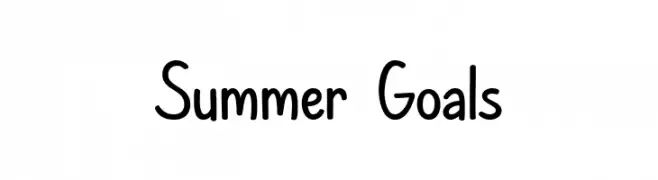
• Abessom Italic
An elegant, italicized script font with a handwritten feel.
• Abhaya Libre
A classic serif font with modern elegance and refined letterforms.
• Abhaya Libre Bold
A bold serif typeface with elegant, traditional characteristics and moderate contrast.
• Abhaya Libre ExtraBold
A bold serif typeface with a classic and authoritative style.
• Abhaya Libre Medium
A medium-weight serif font with a classic and formal appearance.
• Abhaya Libre Regular
A classic serif font with a modern touch, offering elegance and versatility.
• Abhaya Libre SemiBold
A semi-bold serif font with a classic and elegant style.
• Abhayas
A cursive, handwritten-style font with elegant, flowing strokes.
• Abhayas light
A lively and flowing script font with cursive, connected letterforms.
• Abhinaya Regular
A bold, angular font with high contrast and geometric elements.
• Abiali
A playful, artistic script font with a handwritten, whimsical style.
• Abigail 2
A whimsical and elegant script font with decorative loops and smooth curves.
• Abigail 2
An elegant, flowing script font with ornate uppercase and smooth lowercase letters.
• Abigail Modern Serif Font Demo !
A modern serif font with high contrast and elegant, thin strokes.
• Abigail Script Demo Regular
An elegant script font with flowing, cursive style and intricate flourishes.
• Abigaila
A bold, expressive handwritten font with dynamic cursive letterforms.
• Abilane Flower Monogram Regular
A decorative font with floral monogrammed letters and a whimsical, elegant style.
• Abilya
A graceful and fluid script font with elegant cursive strokes.
• Abiscuos Regular
• Abraham Outline Italic Outline Italic
A modern, italic outline font with uniform stroke width.